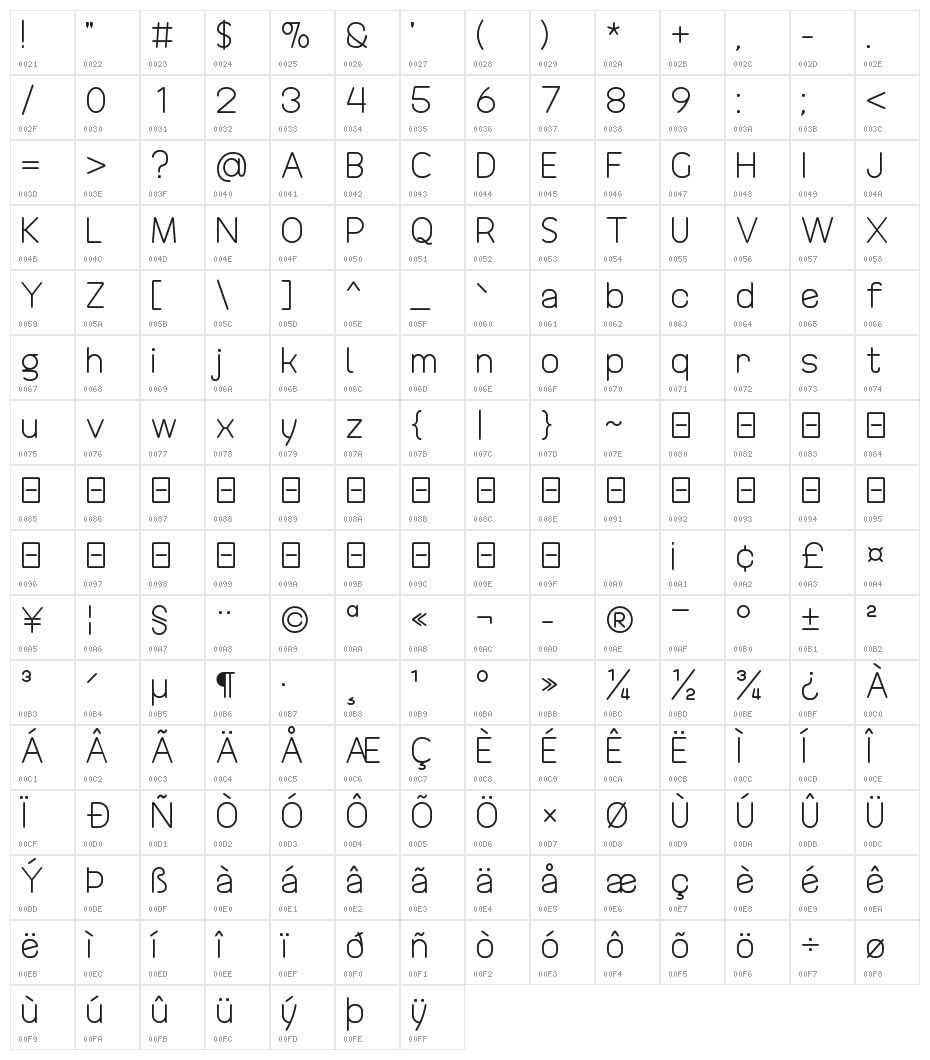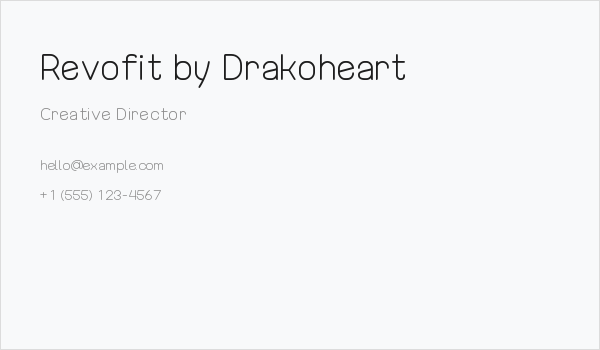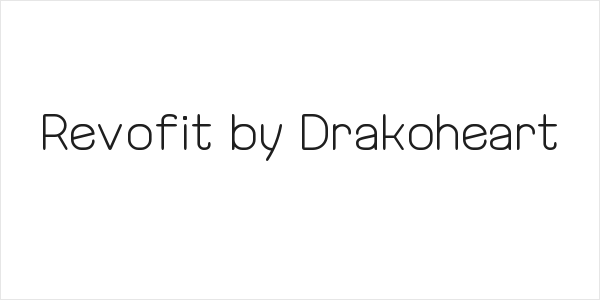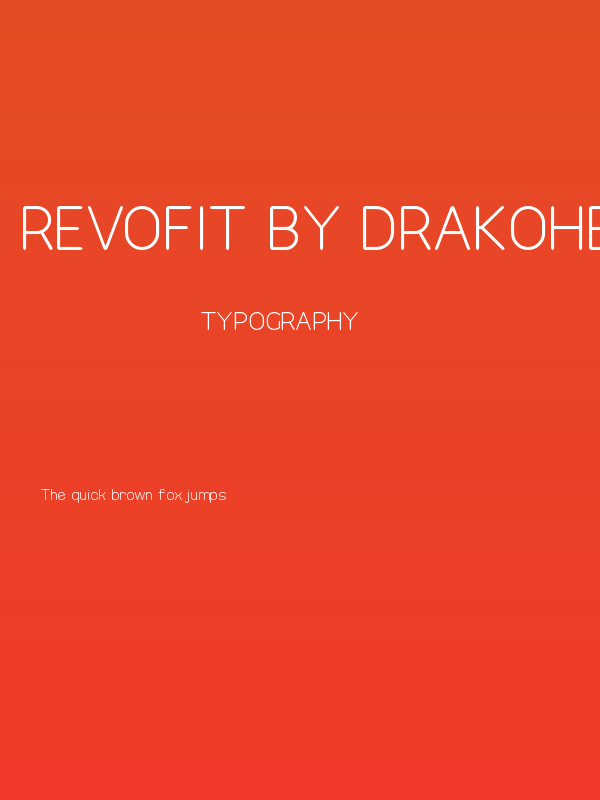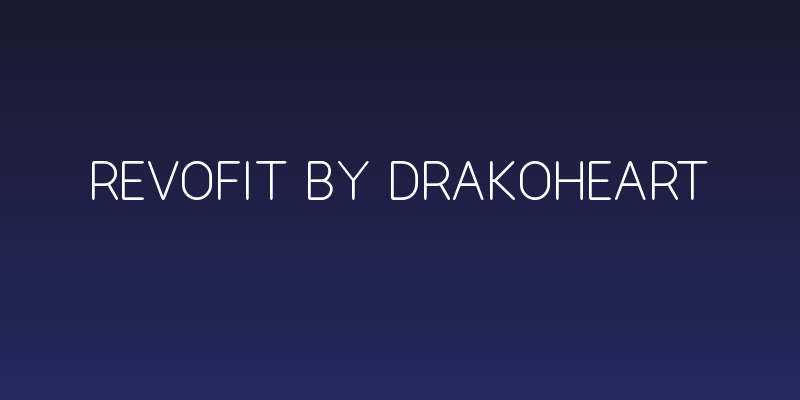
Revofit by Drakoheart Font
Revofit by Drakoheart Description
This font features a clean and modern sans-serif design with rounded edges, giving it a friendly and approachable appearance. The characters are evenly spaced, contributing to its readability. The uppercase letters are slightly taller than the lowercase, maintaining a consistent line weight throughout. Numbers and special characters are designed to match the overall aesthetic, ensuring uniformity across different text elements. The simplicity of the design makes it versatile for various applications, from digital interfaces to print media.
| Proposed Projects | Ideal for user interfaces, branding, advertising, and educational materials due to its clarity and modern appeal. |